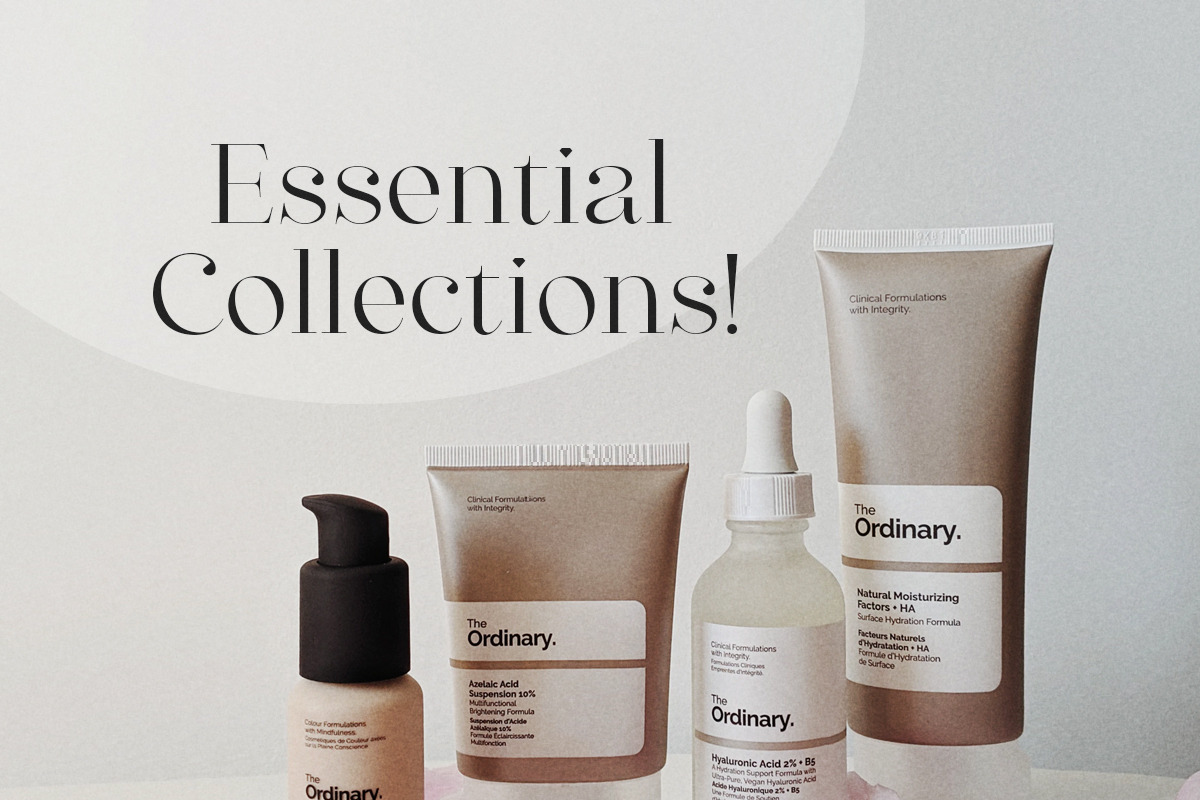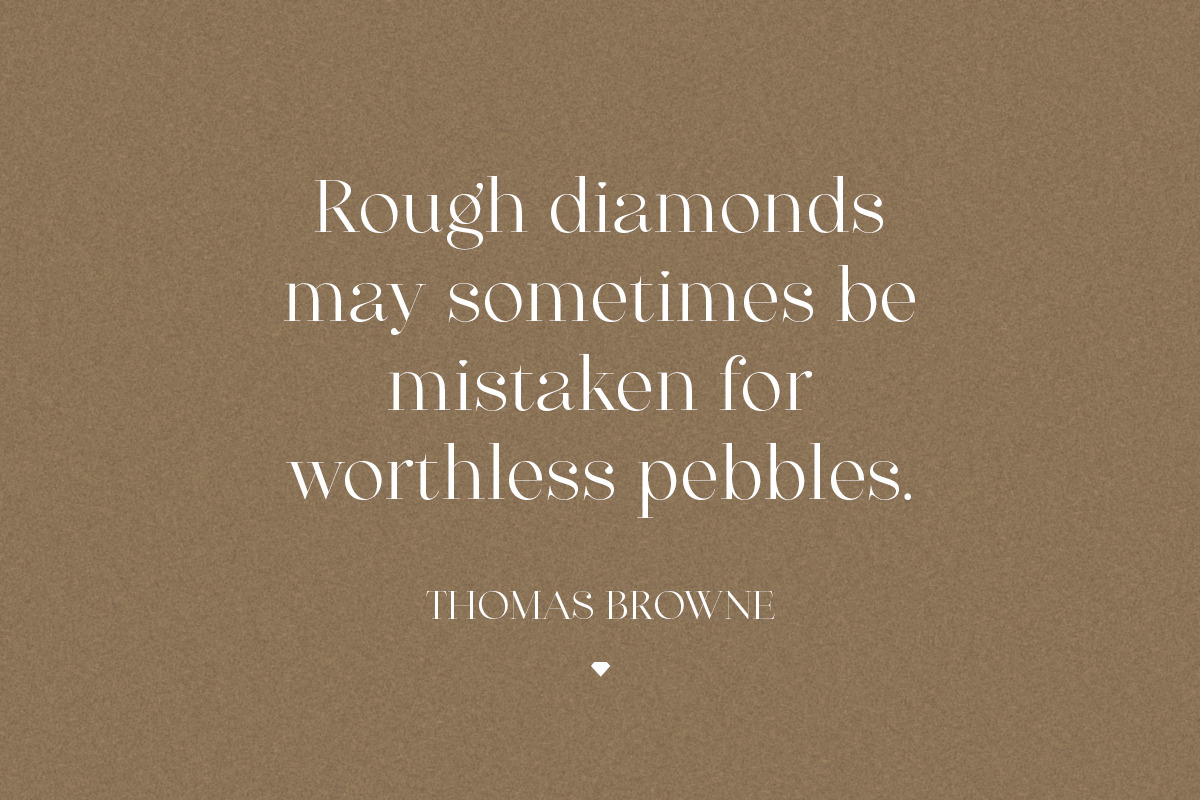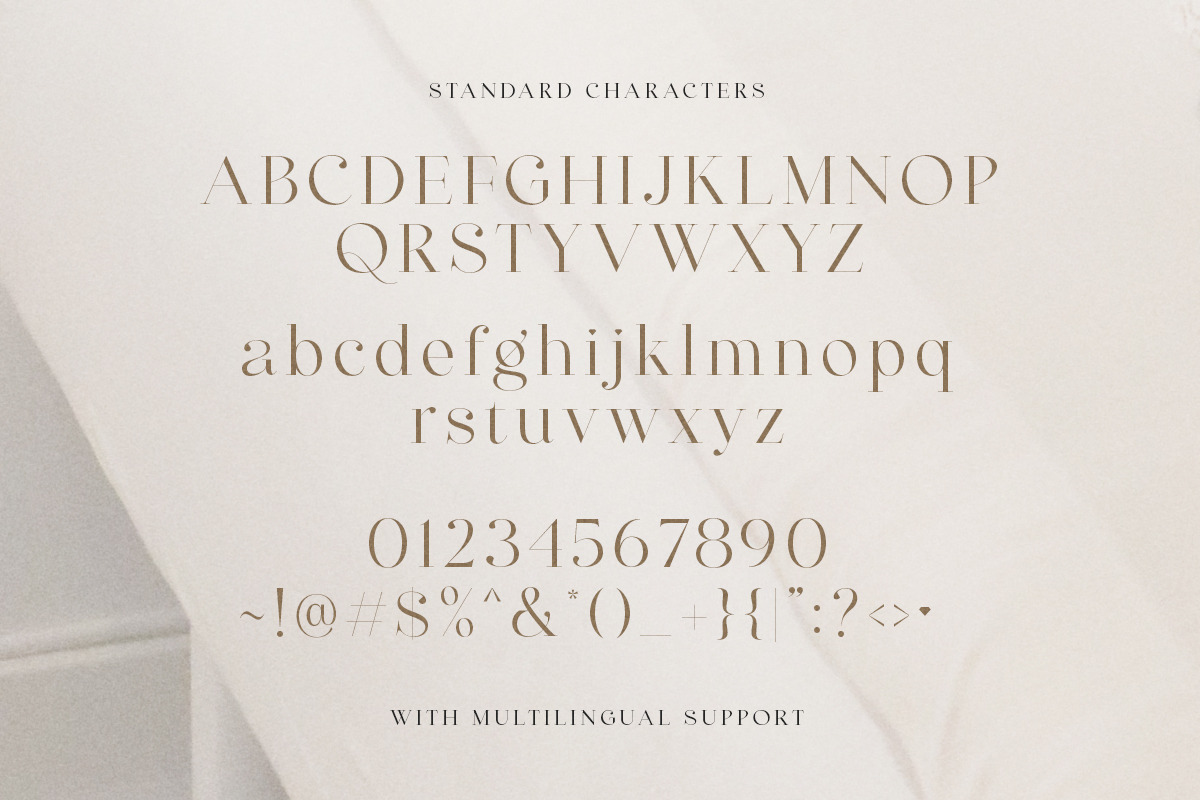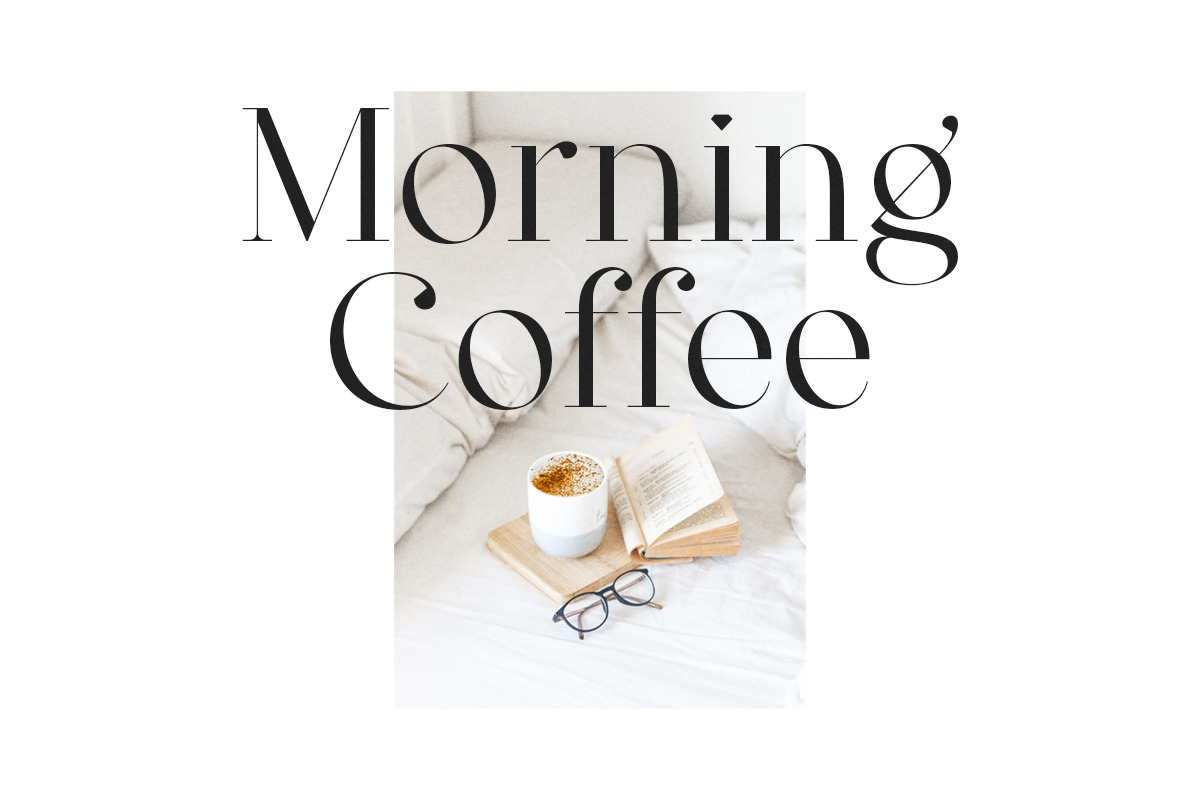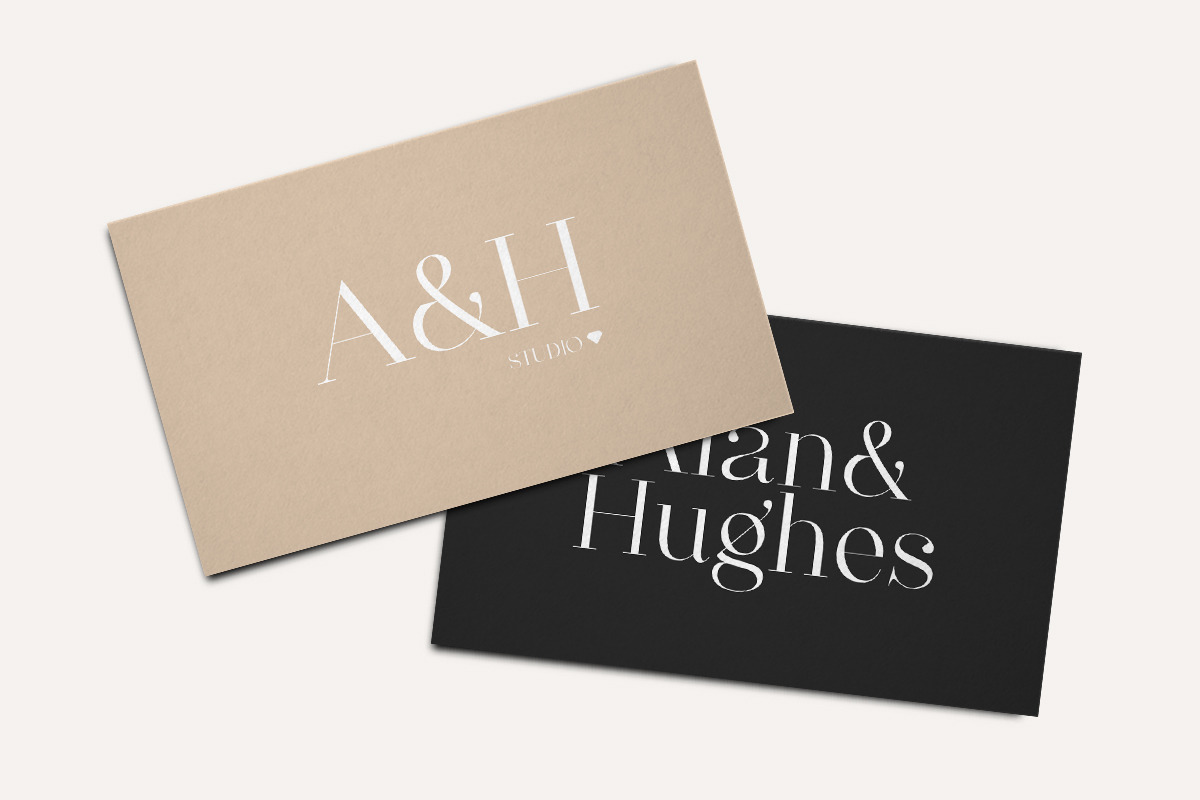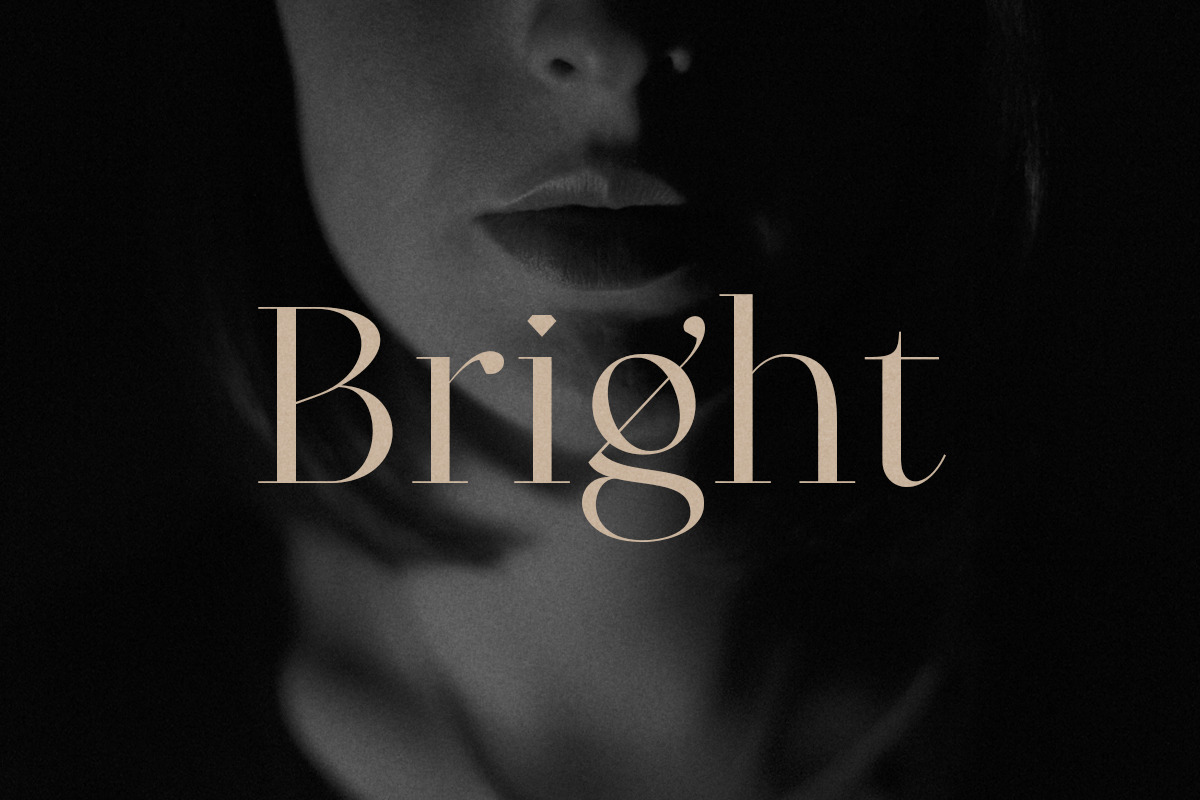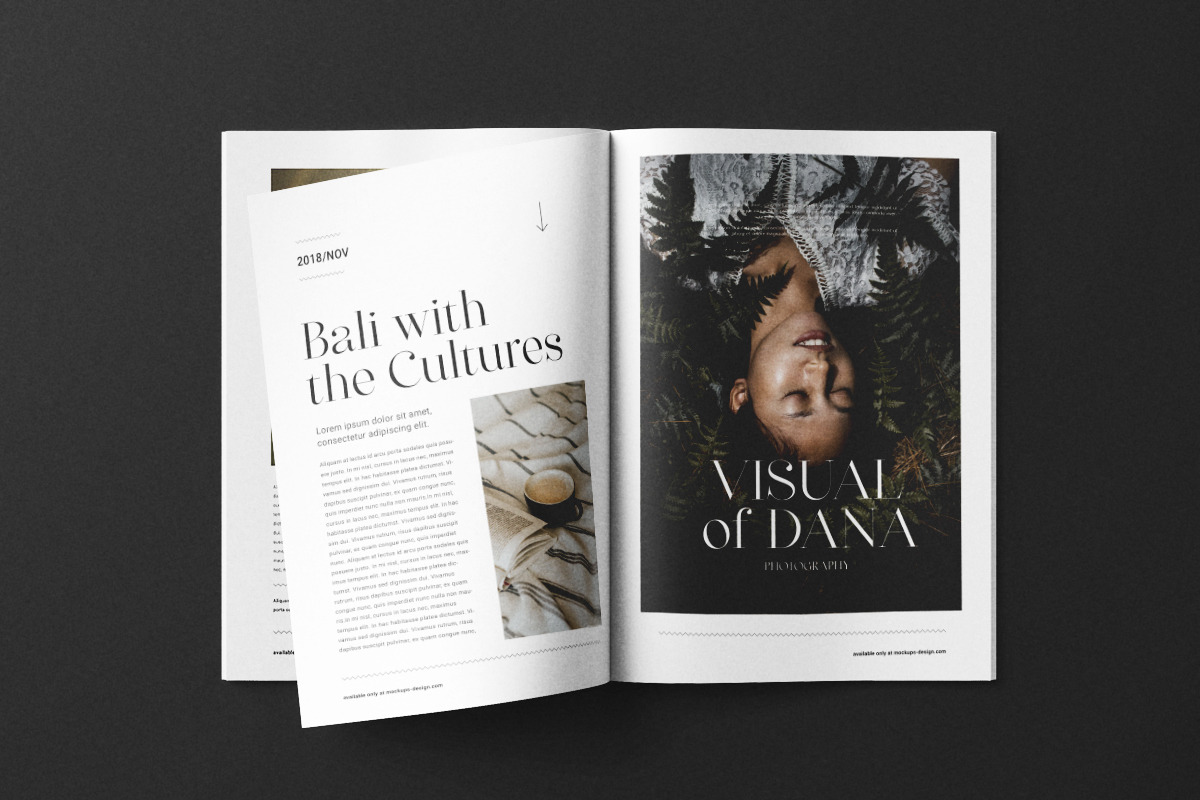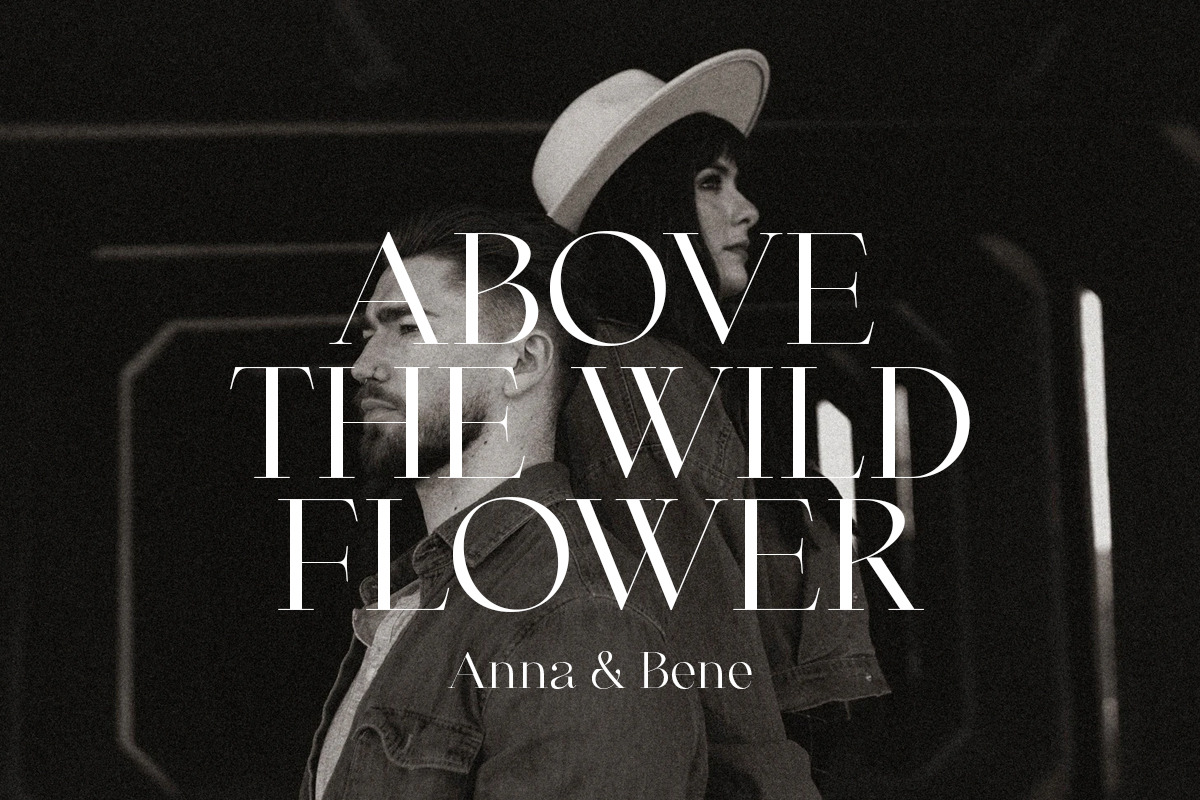
Diamond Bridge - Classy Serif
Introducing, Diamond Bridge - a classy serif with diamond touch!
Diamond Bridge is an elegant and classy serif with a beautiful details that will make your presentation, logo or your wedding invitations more stunning and classy! You can use this font for several purposes such as a wedding invitations or even your own branding! This fonts support Multi Language and already PUA Encoded!